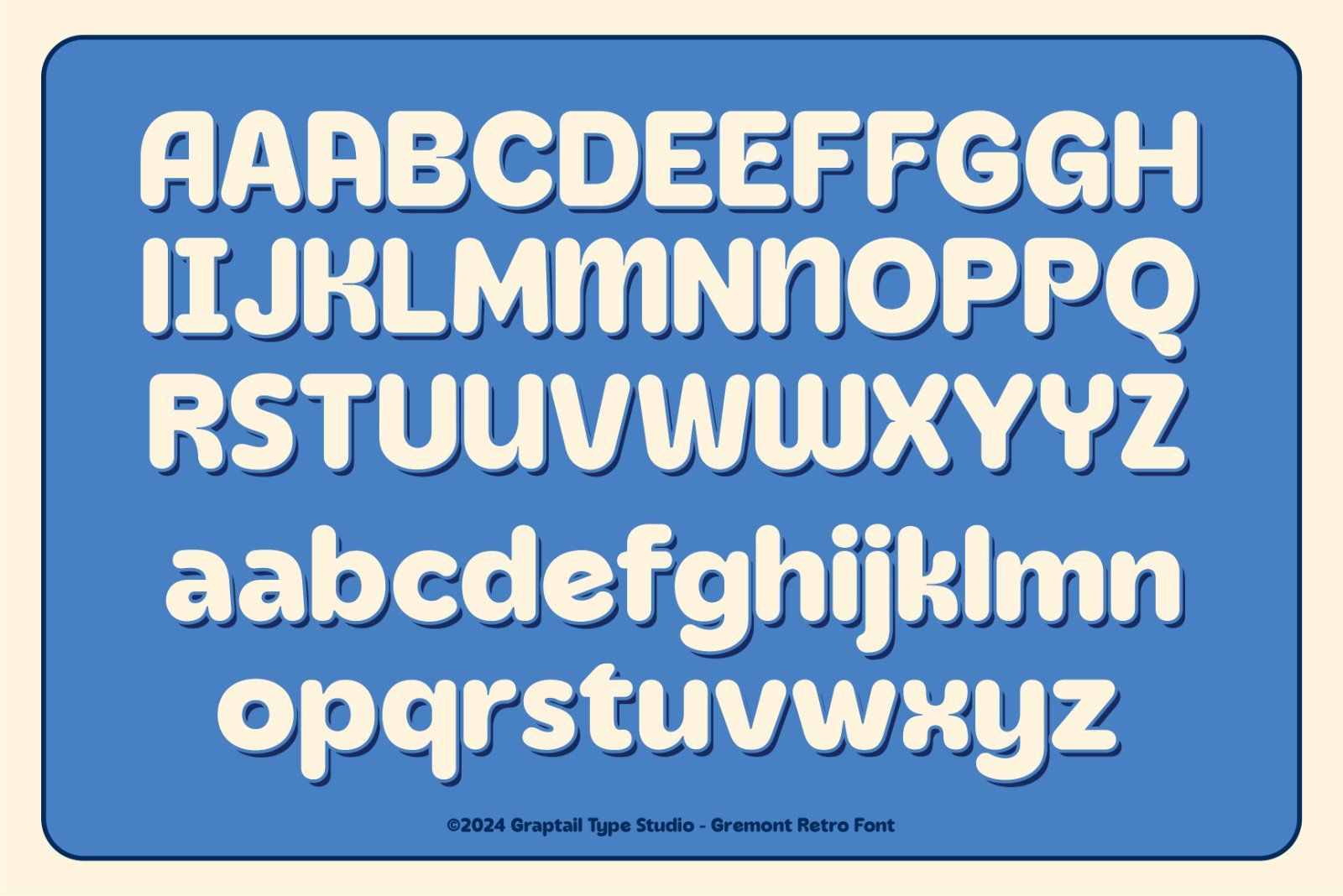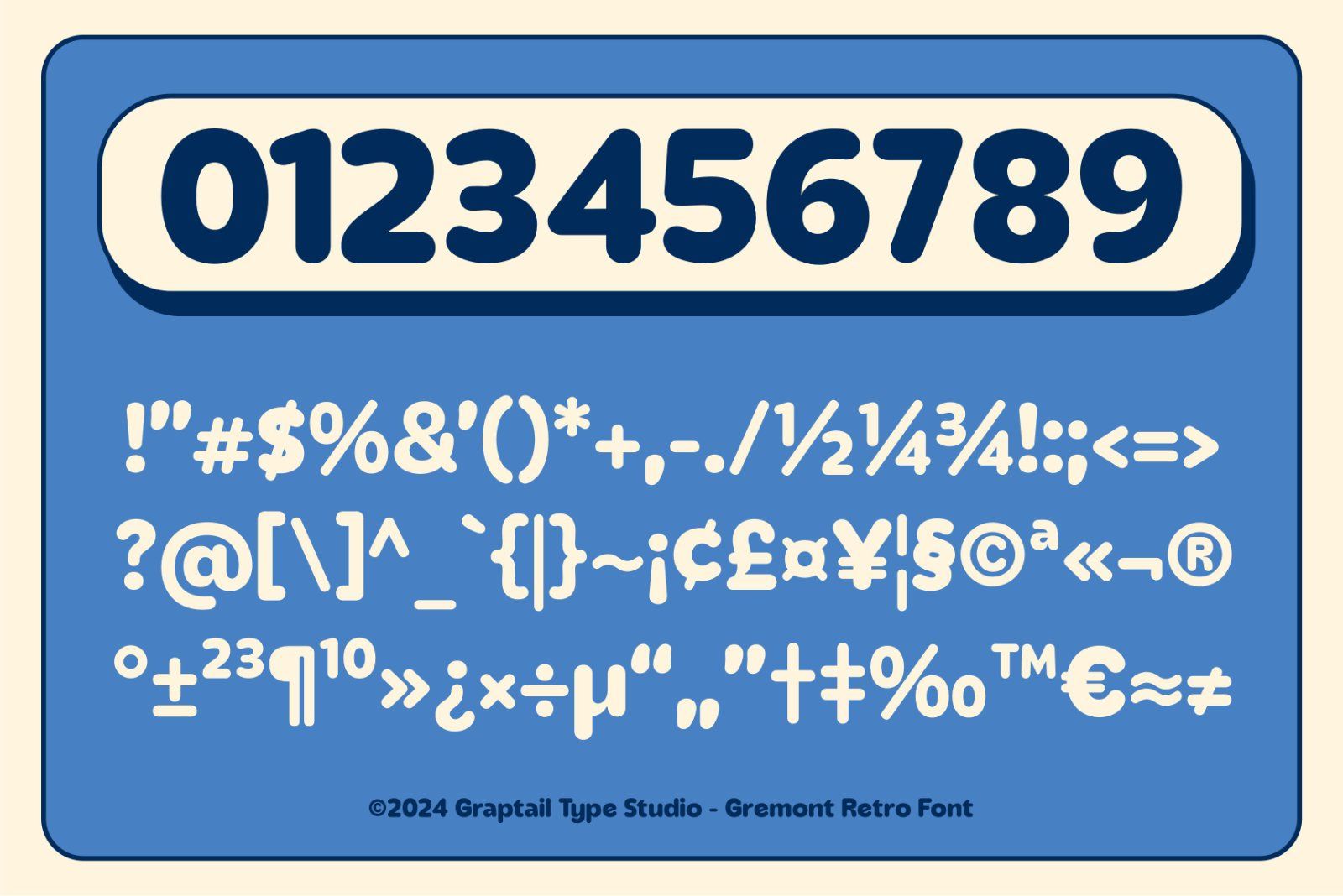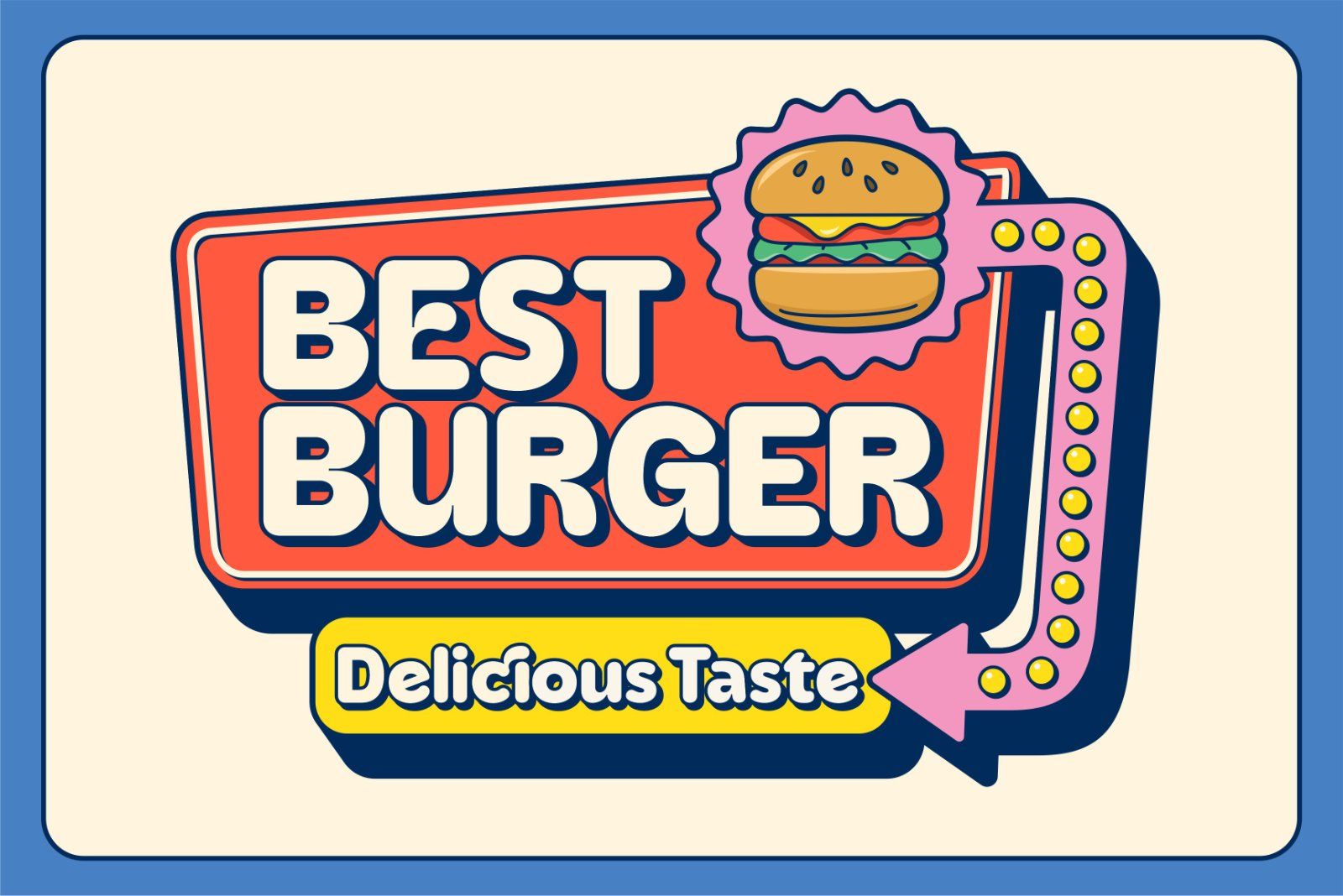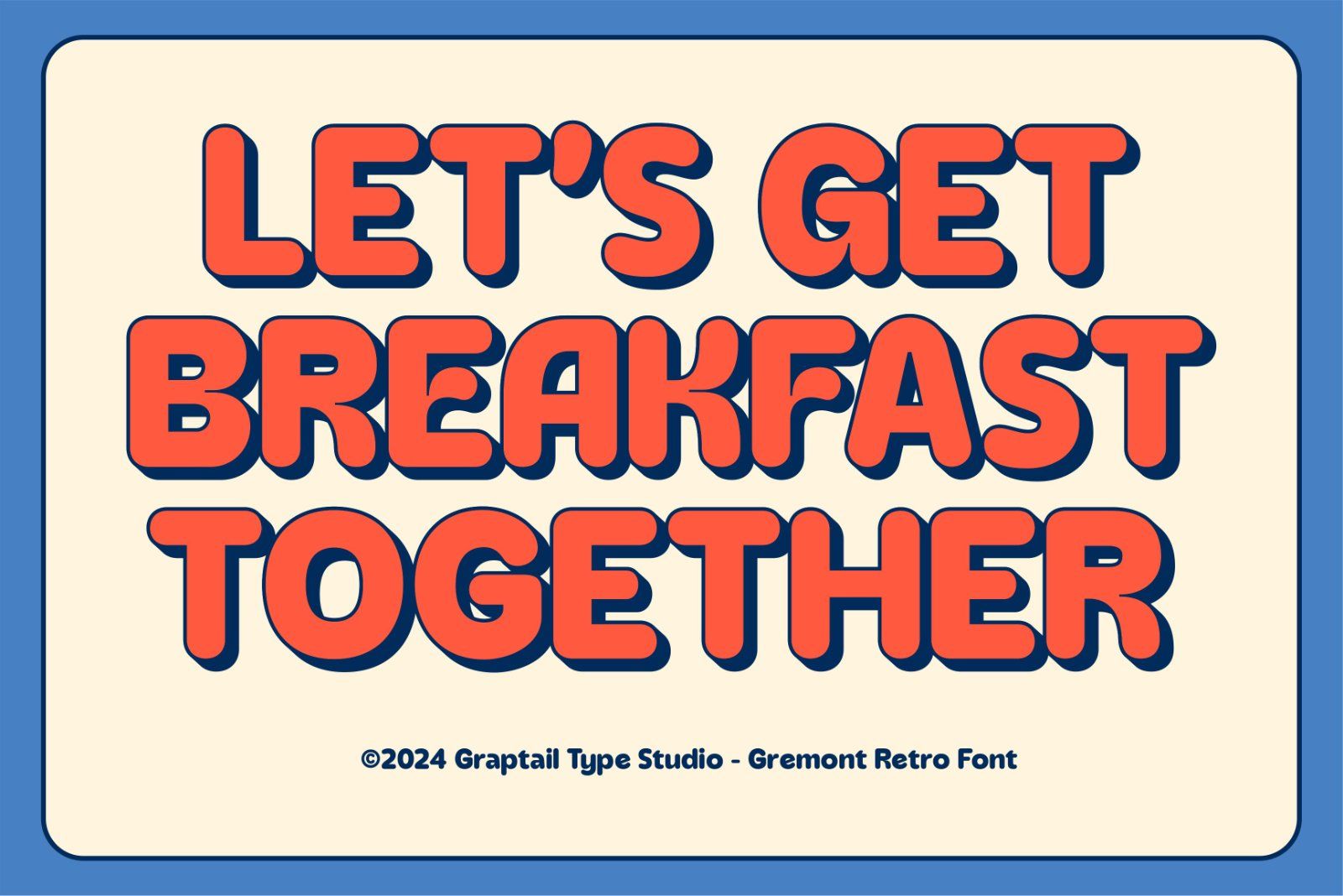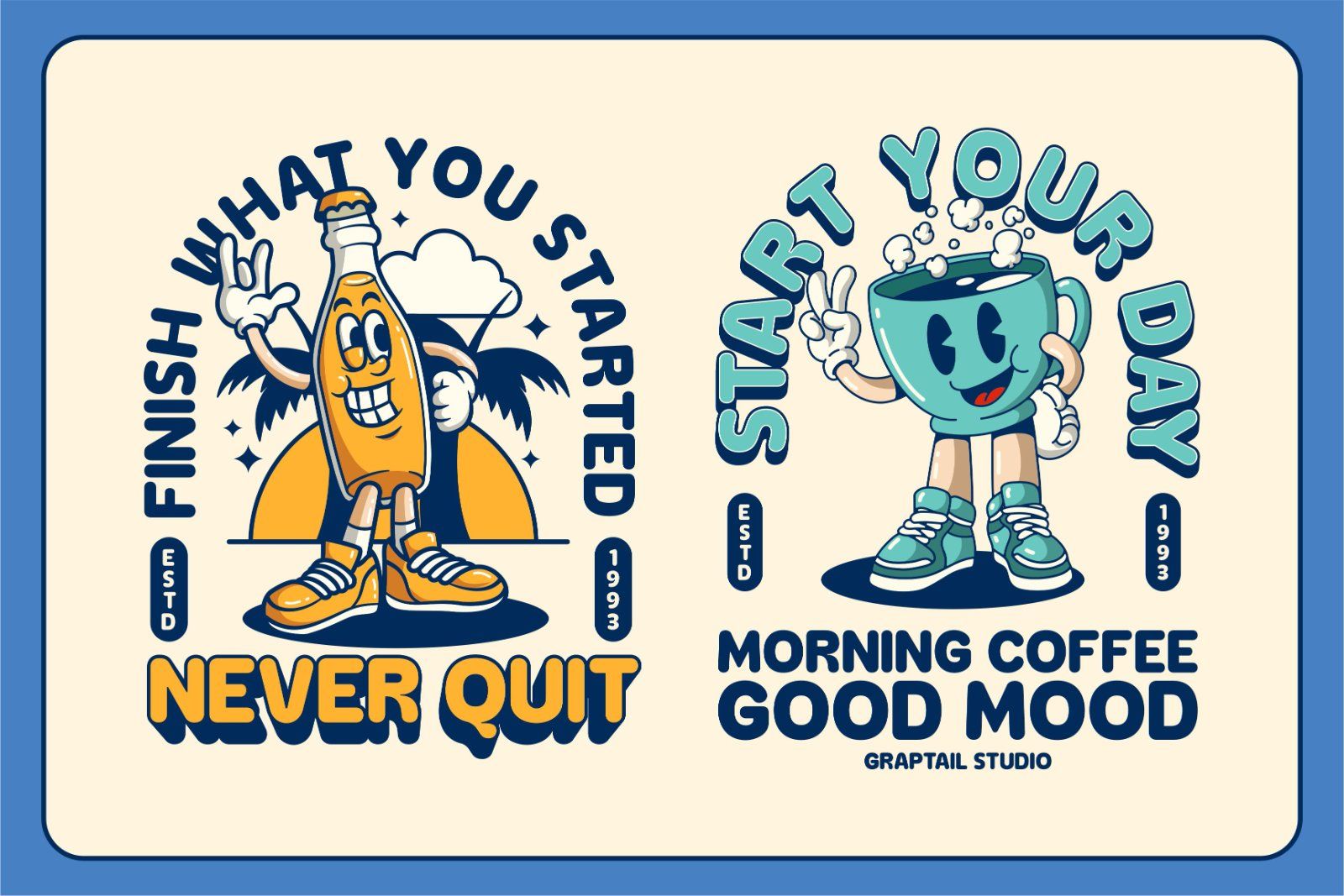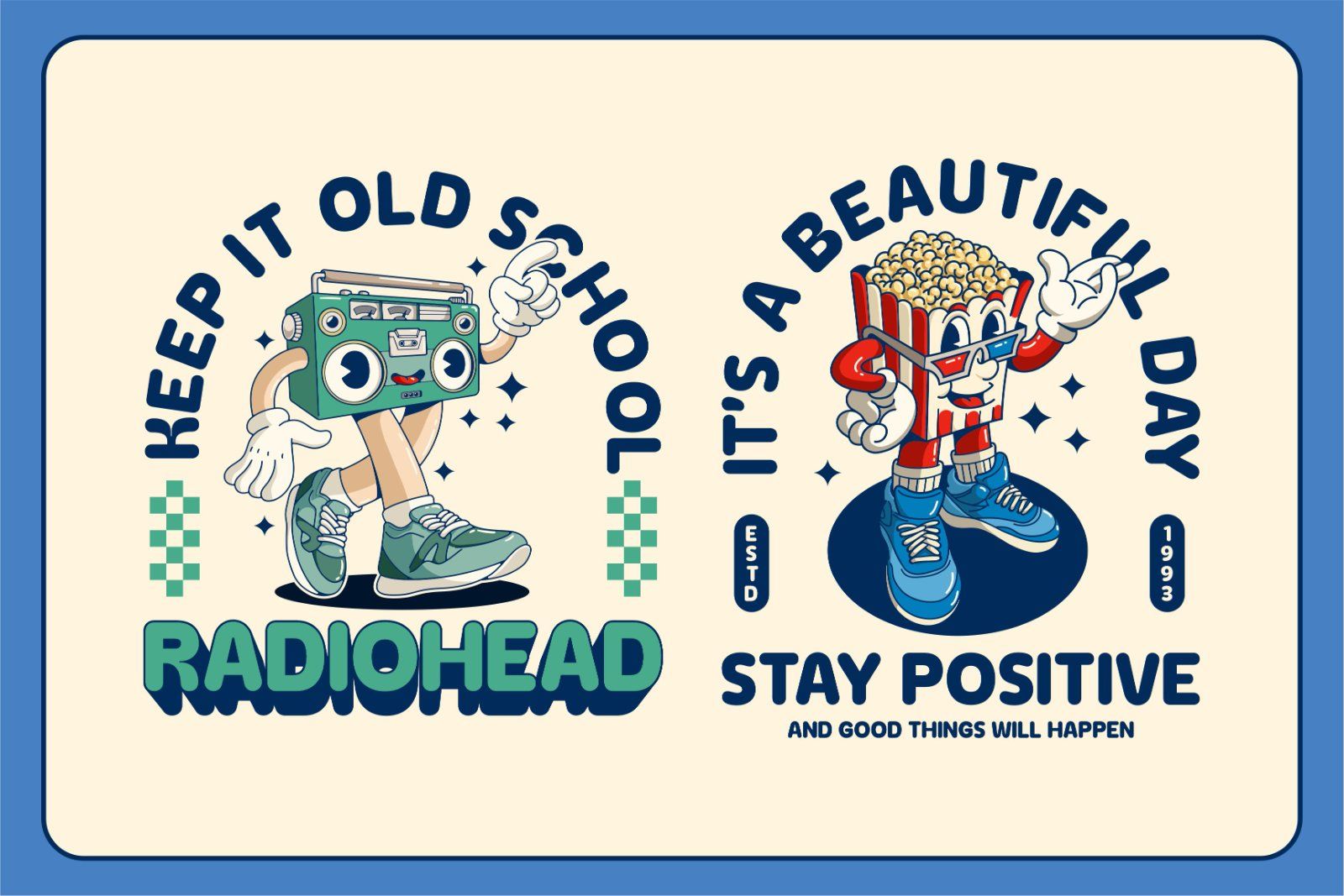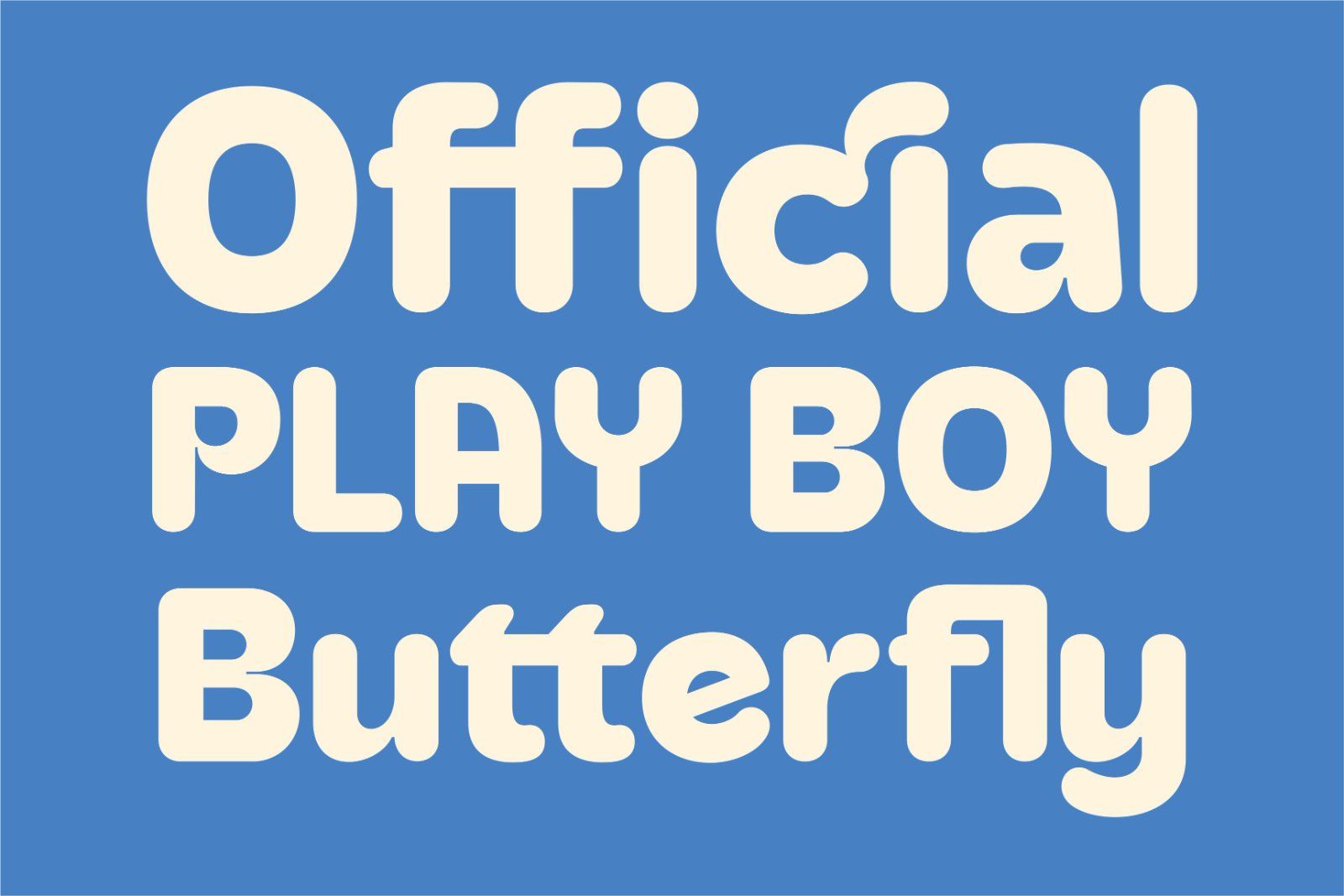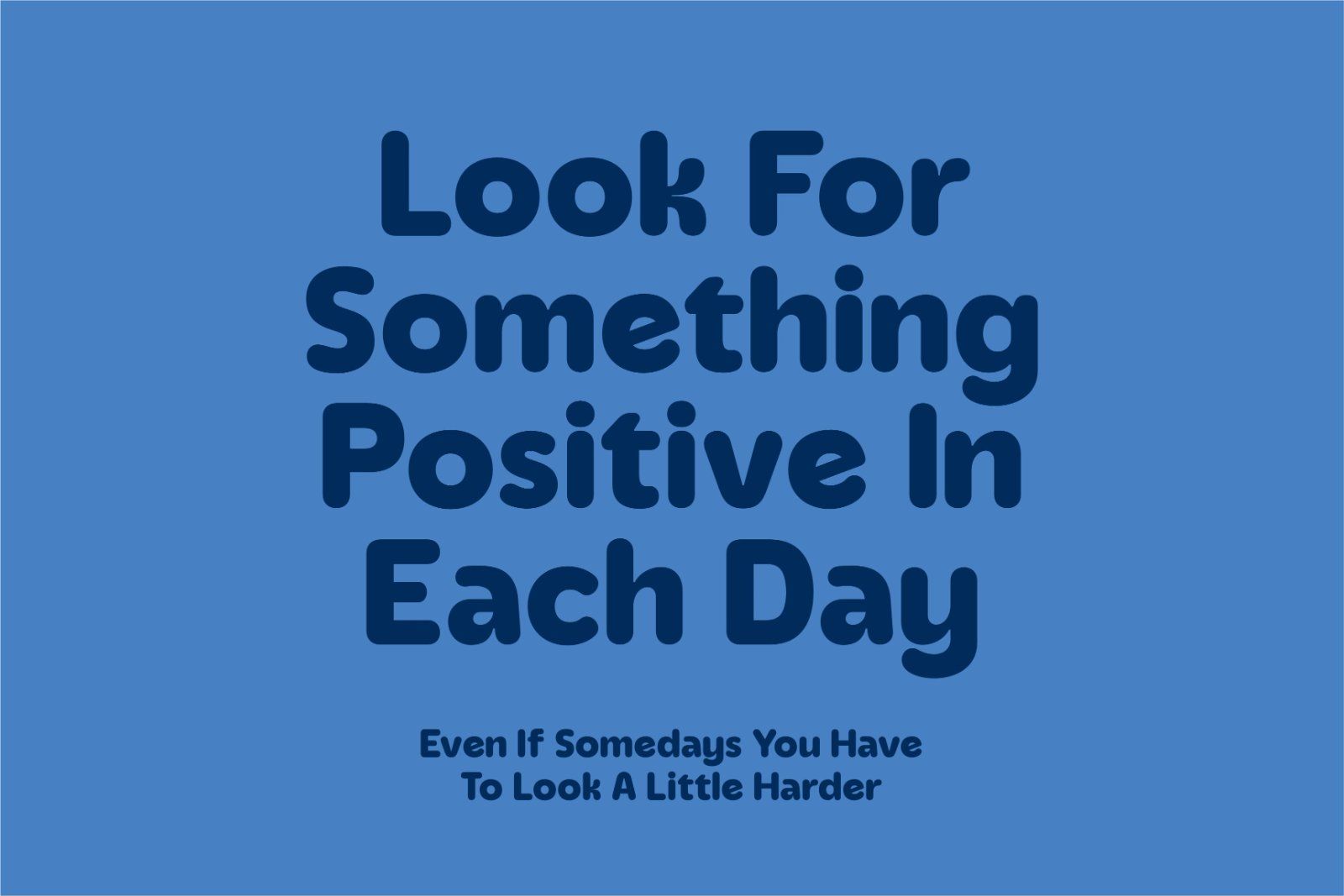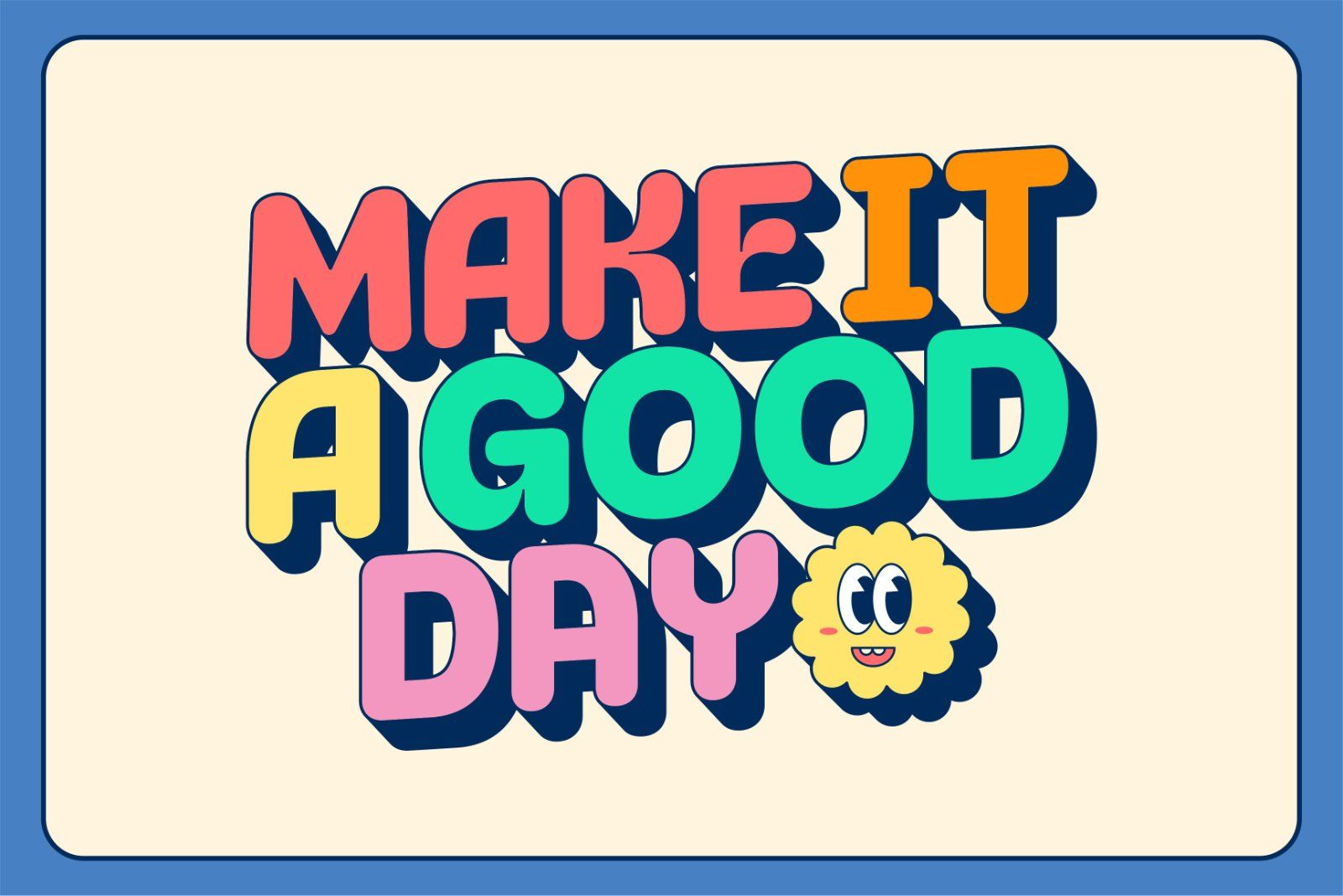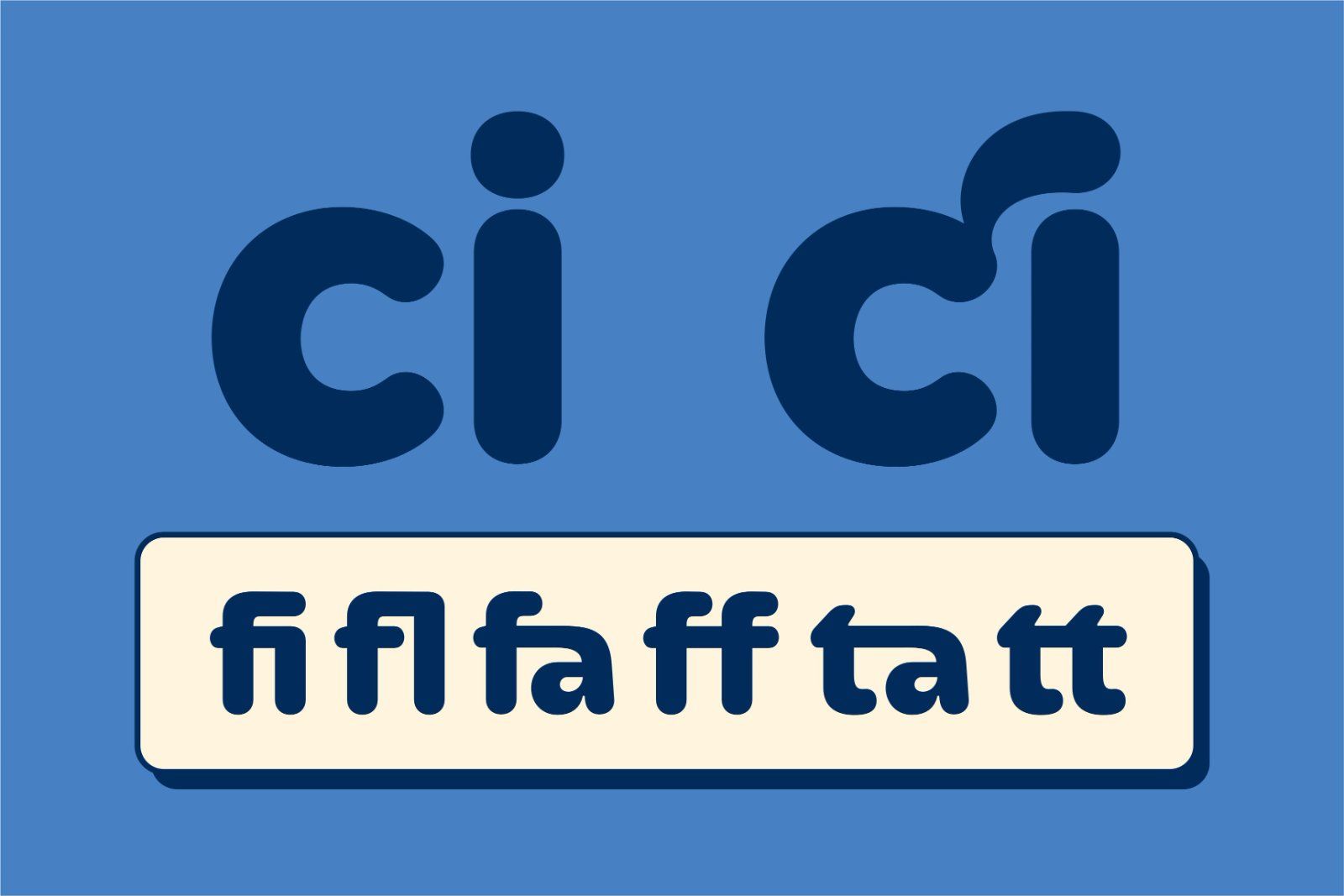
Gremont Rounded is a sans-serif typeface that exudes retro charm with a modern twist. Combining smooth, rounded lines with a distinct vintage vibe, Gremont Rounded is the perfect choice for designs seeking a balance between nostalgic warmth and contemporary freshness.
With its harmonious letter proportions and gently rounded corners, this font offers high readability and an inviting aesthetic. Gremont Rounded is ideal for various applications, from branding and posters to marketing materials that need a friendly and memorable character.
The retro essence of Gremont Rounded is evident in its letterforms, inspired by typography from the 1970s yet updated to remain relevant in the digital age. It's the perfect choice to add a touch of nostalgia to your designs while maintaining a fresh and modern look.